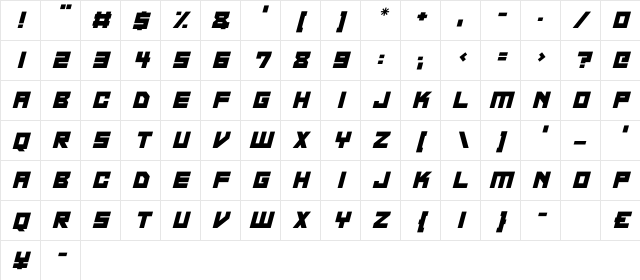
Neon Overdrive Italic Free Font
Neon Overdrive Italic
Complete Neon Overdrive Italic glyph index. Displaying only characters natively supported by Neon Overdrive Italic font.
Design Context for Neon Overdrive
Neon Overdrive has a distinctly futuristic character, with geometric precision and clean angles that feel at home in technology, gaming, and sci-fi contexts. The slanted form adds forward momentum and visual energy.